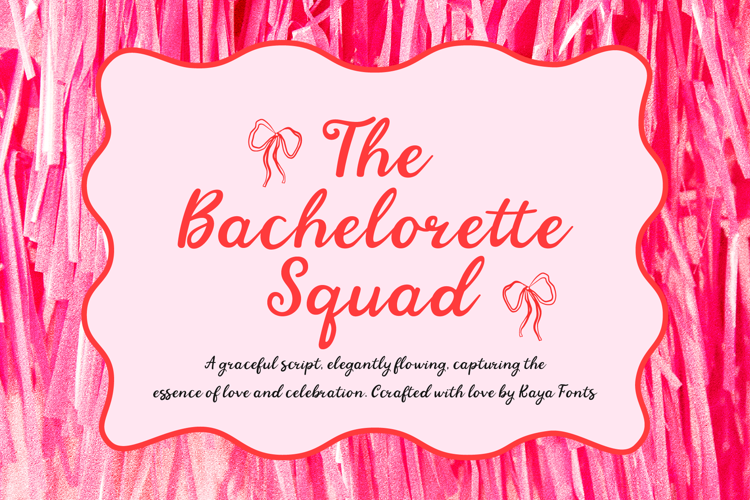
Bachelorette Squad - Wedding Font, Handwritten Script Font
Bachelorette Squad is a lovely script font; elegantly flowing, capturing the essence of love and celebration. With its whimsical charm and delightful tone, this font adds a touch of creativity and fun to your designs.